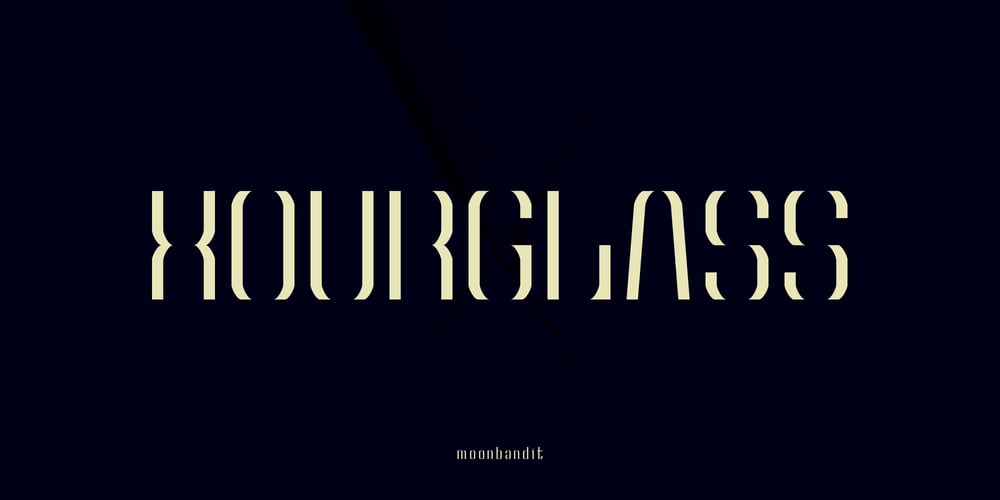
MBF Hourglass Font Family was designed by Bramaji Dipa Manggala and published by Moonbandit. MBF Hourglass contains 2 styles and family package options. a display typeface inspired by the elegant and exotic shape of hourglass.This typeface is perfect if you are in need of a fresh new elegant, rich and expensive feel. This font is filled with unique shaped glyph and several alternate letters. This typeface also comes with 2 styles, regular and connected. Switch in between according to your liking.